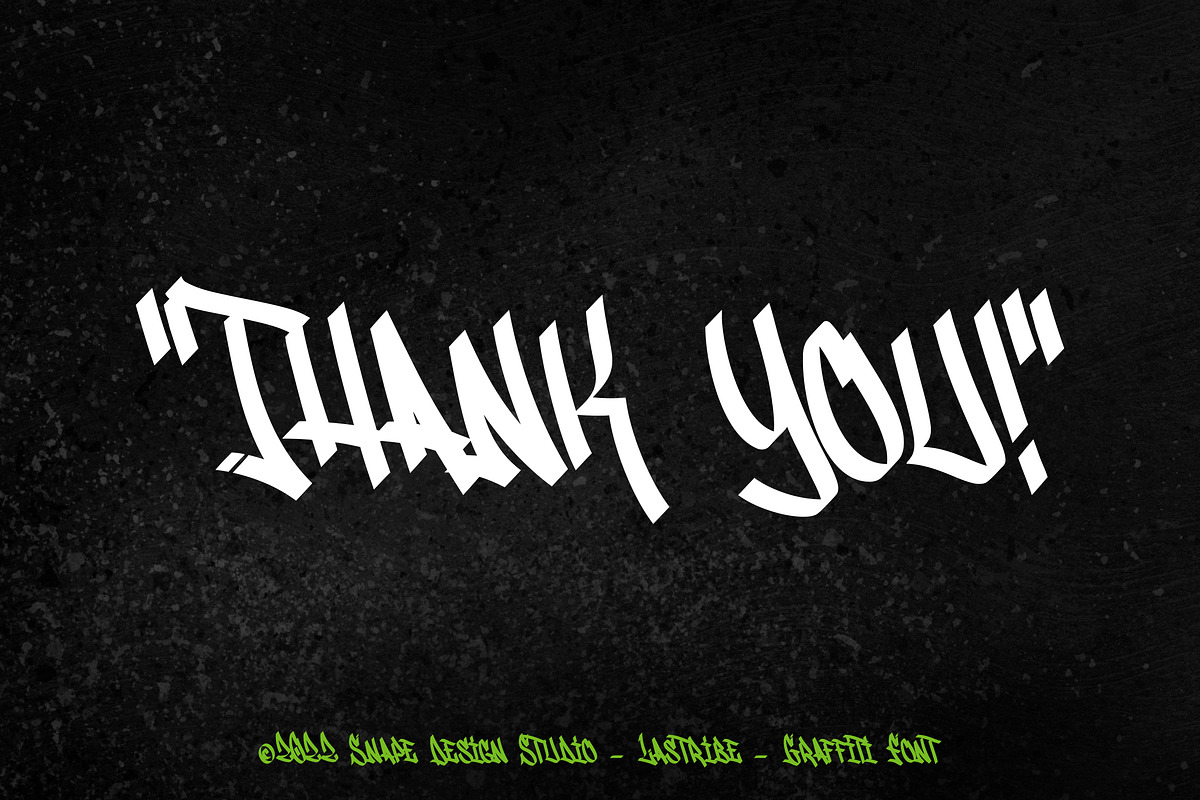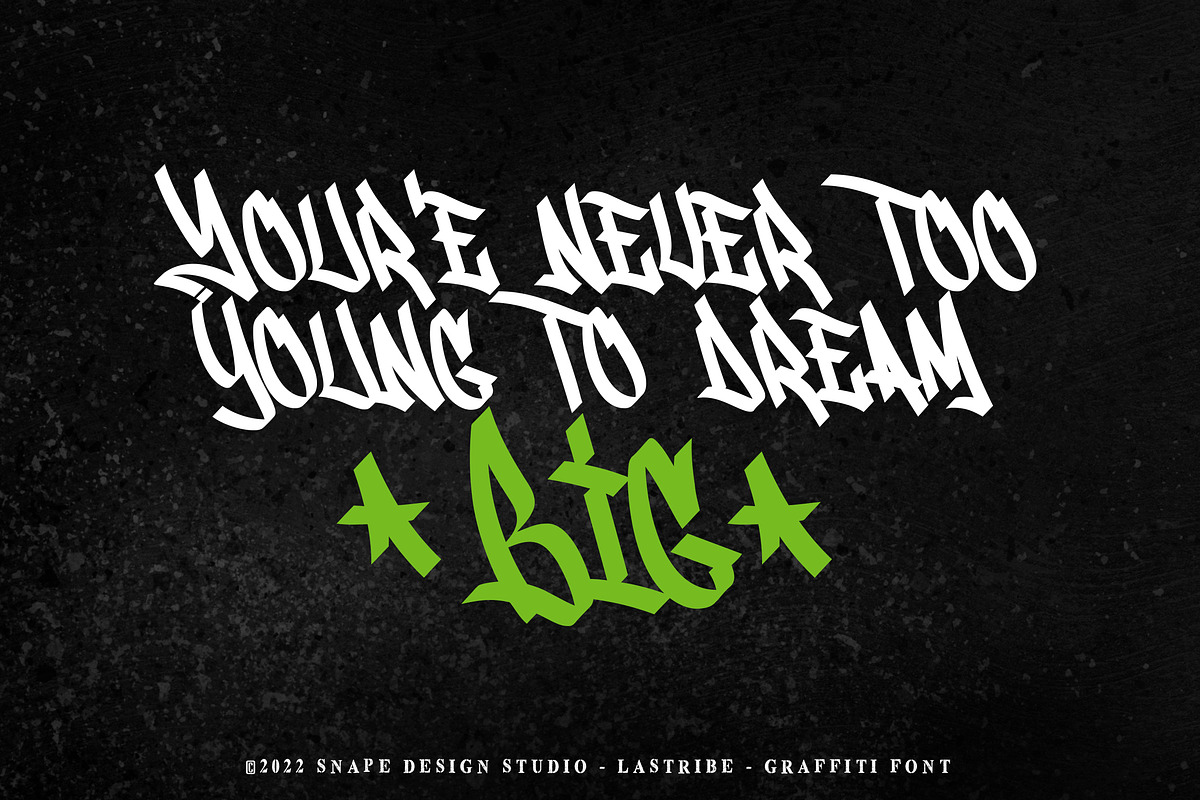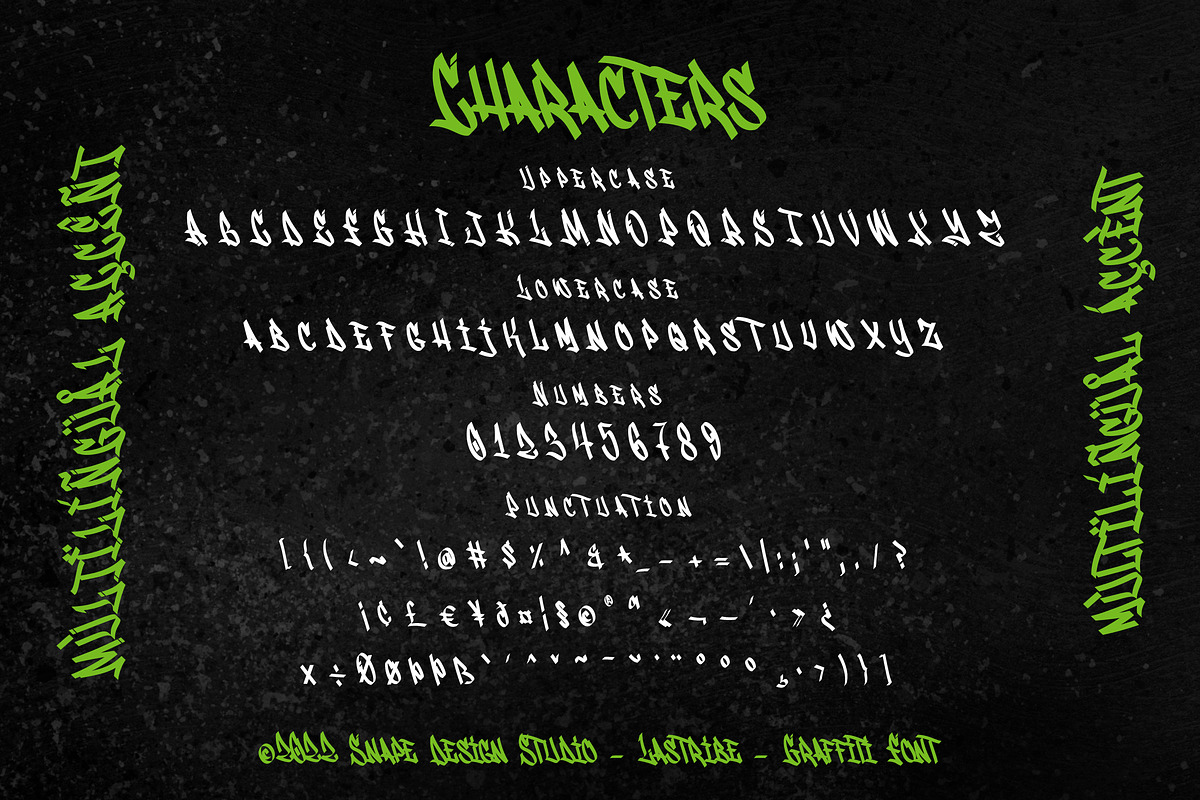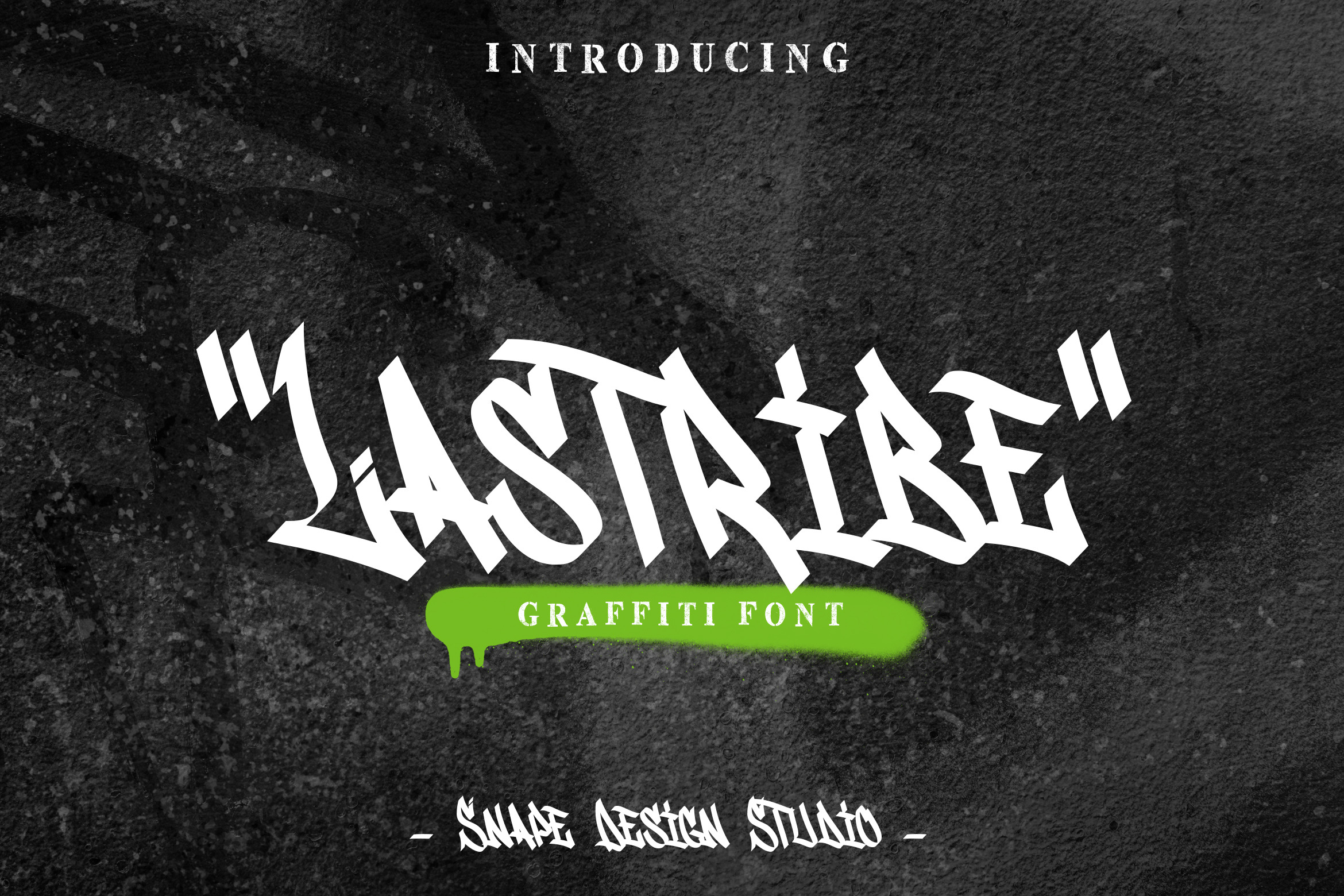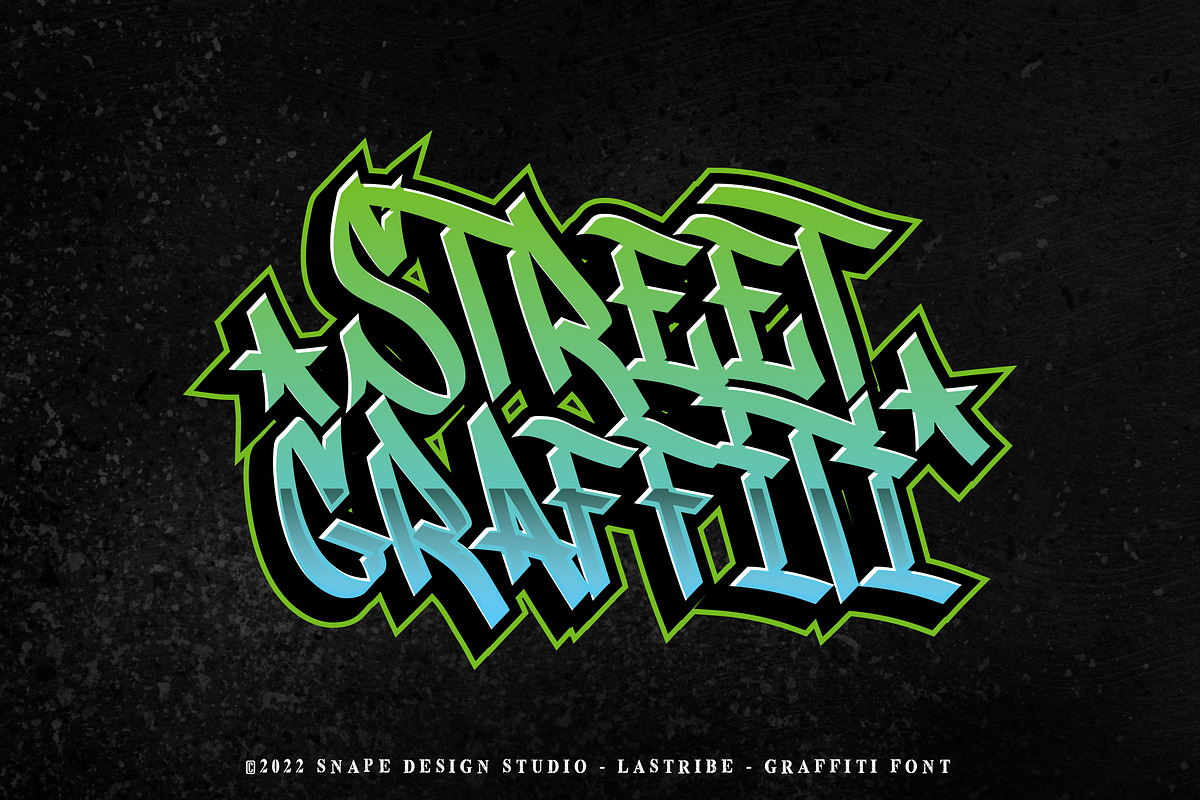
Lastribe - Graffiti Font
LASTRIBE is a display font inspired by typical street art calligraphy style or graffiti tag, suitable for your design related to it. Also suitable for movie, documenter, film, logo, poster, game, book cover, headlines, title and many more projects. Add this font to your creative ideas and notice how it will make them stand out!